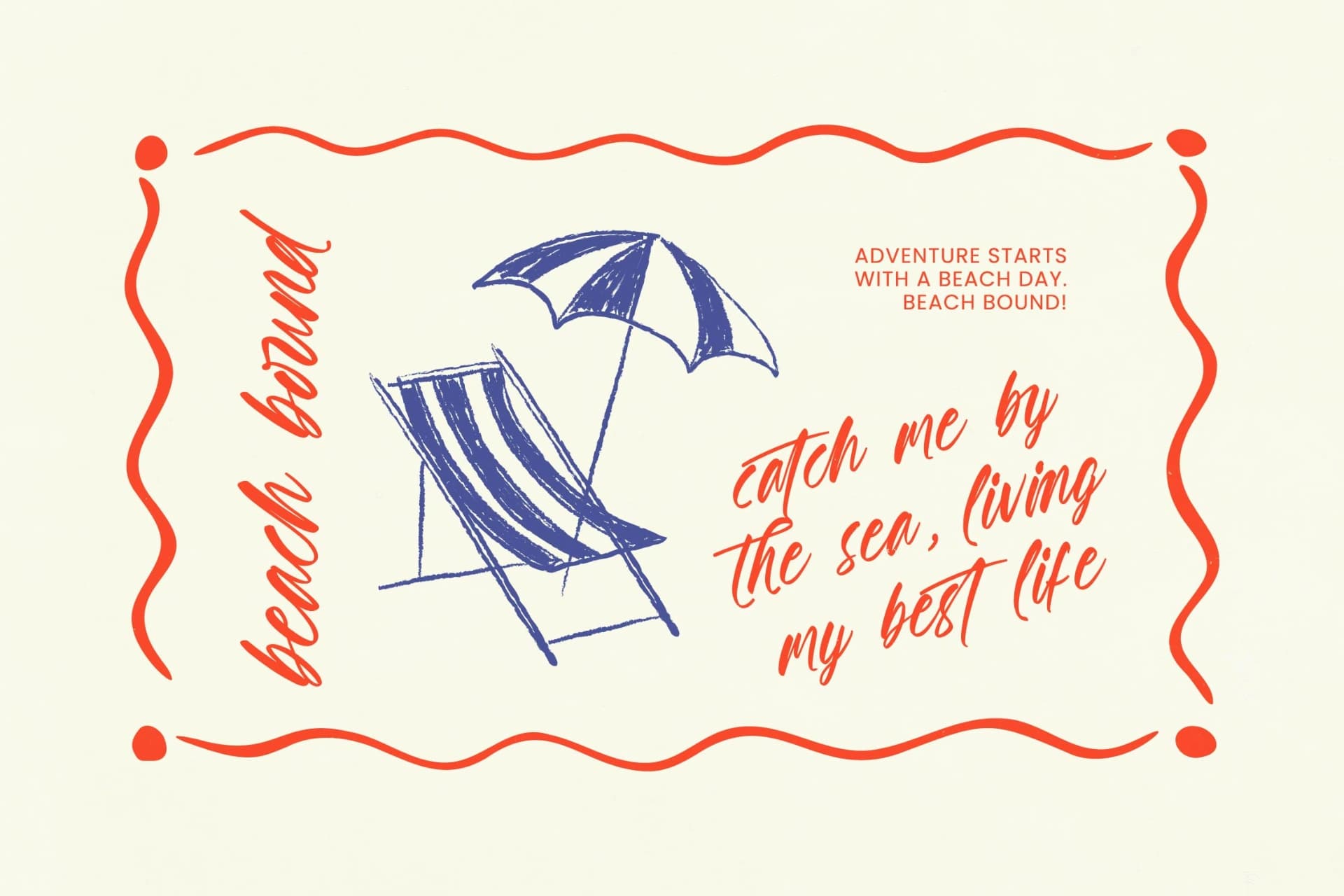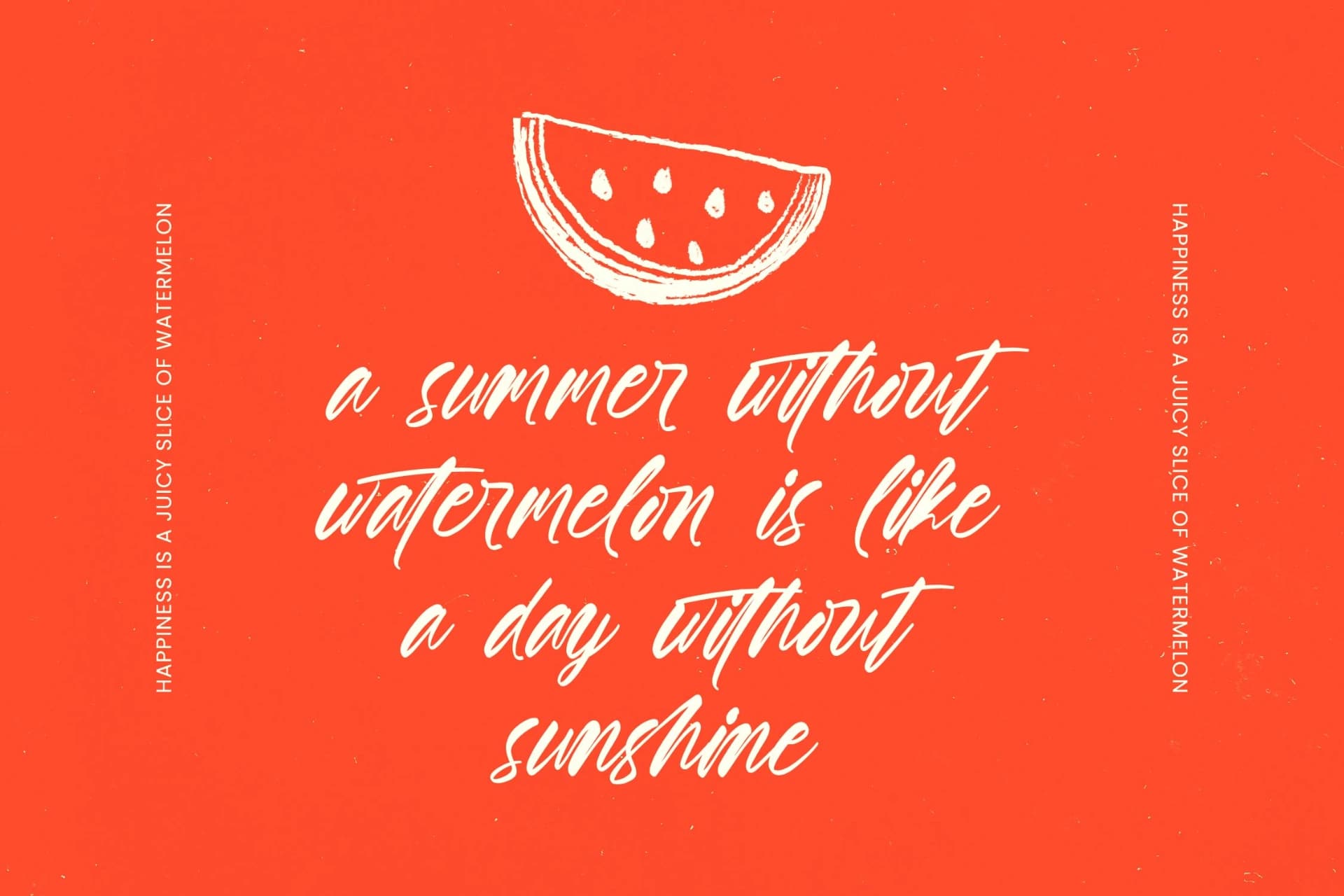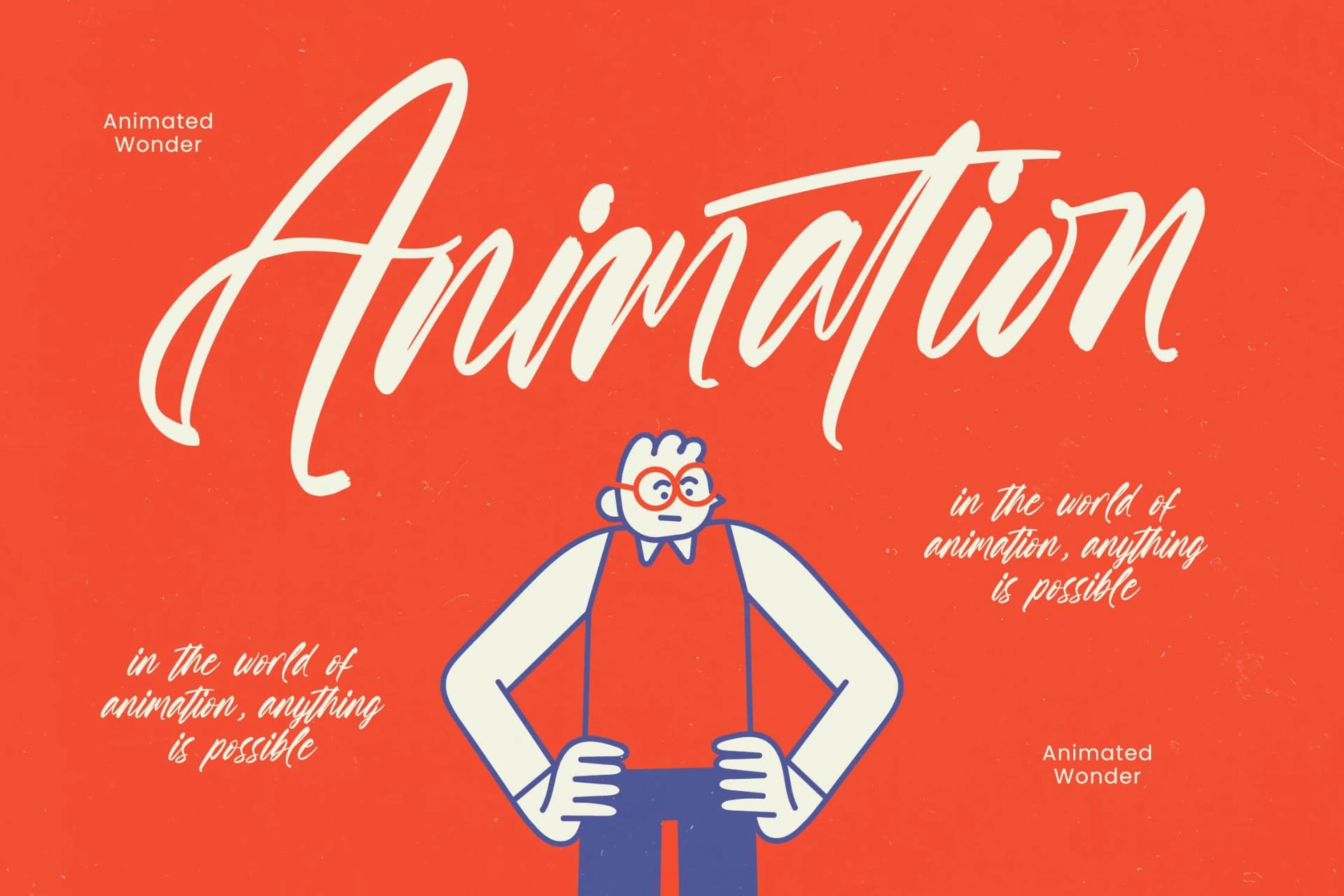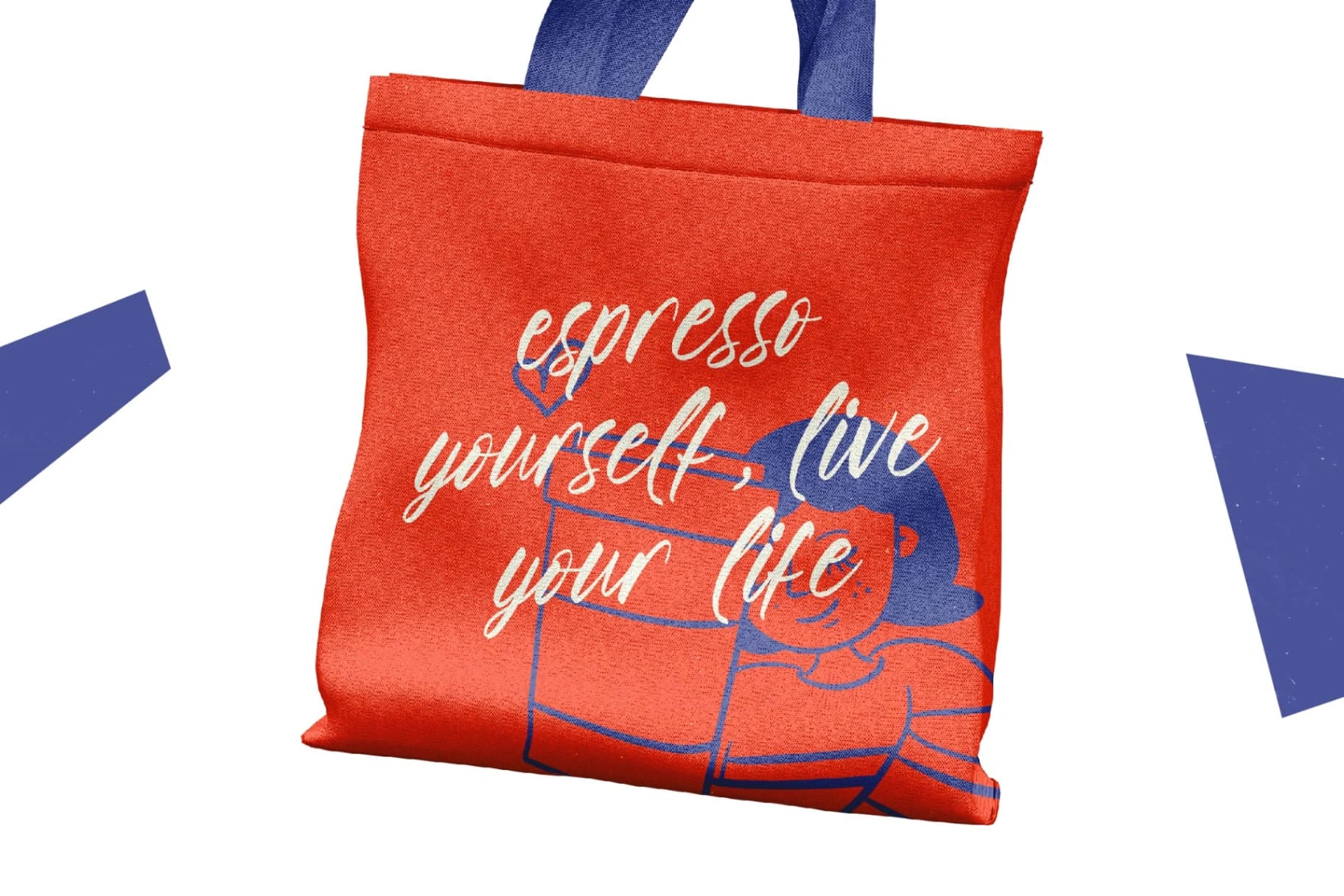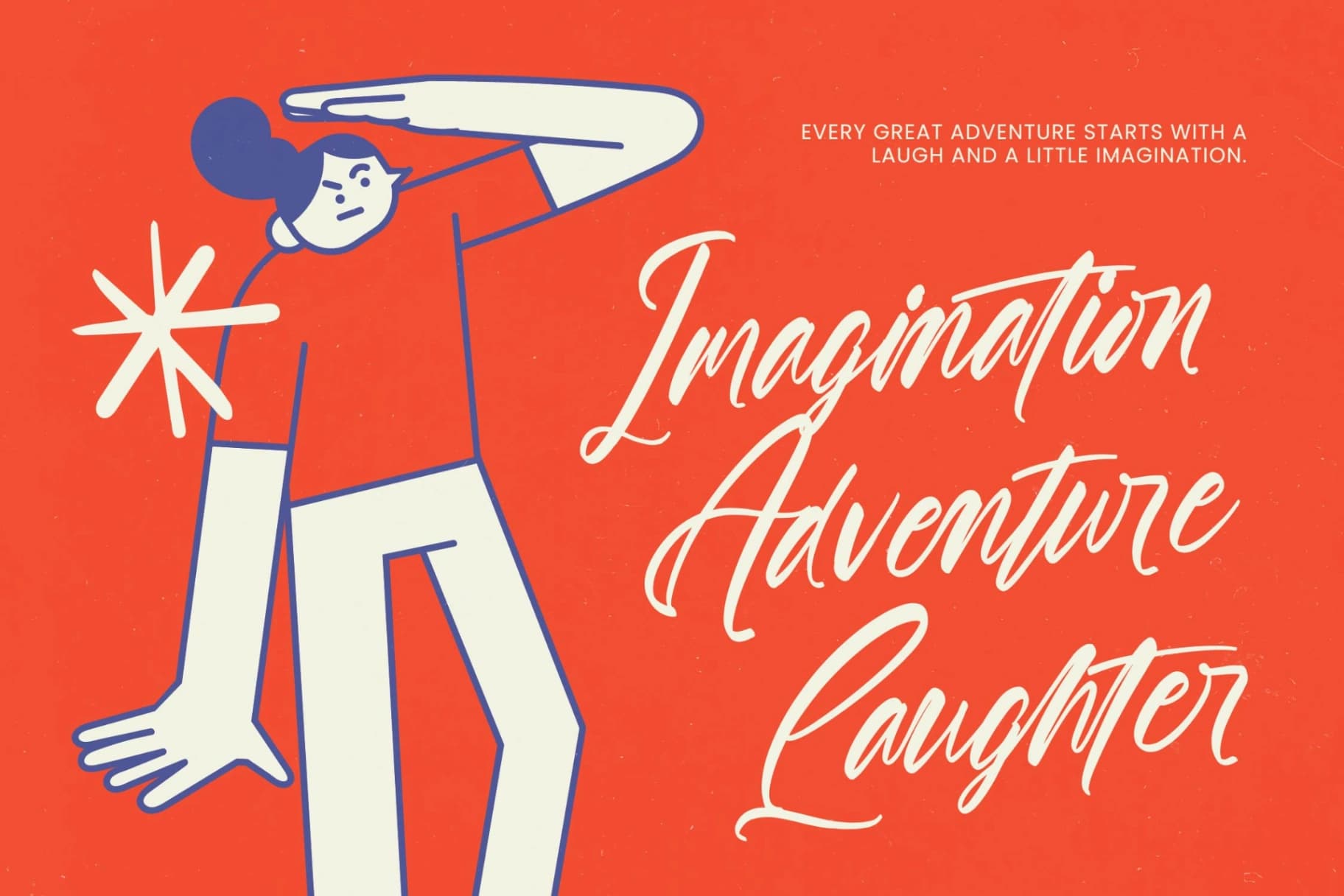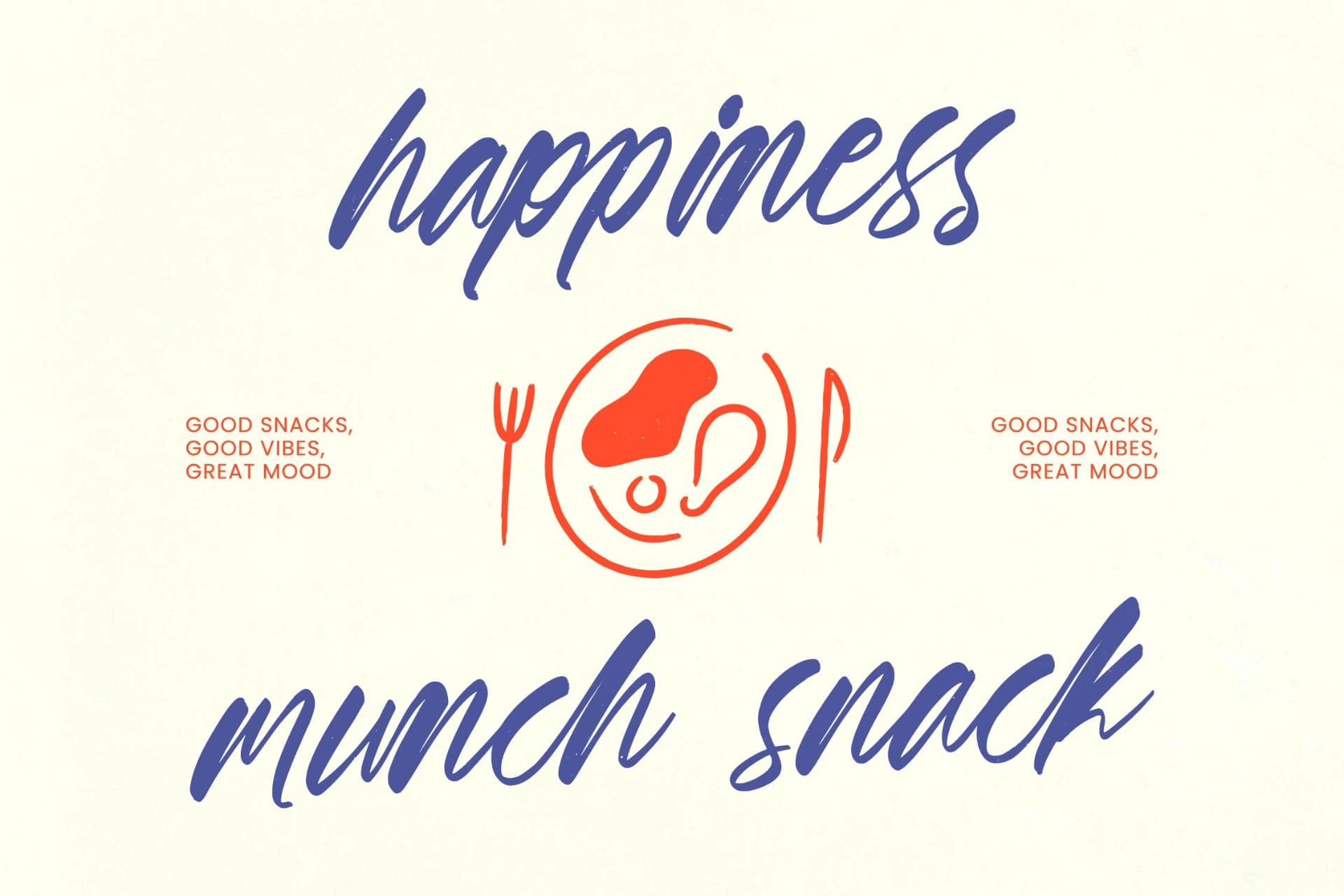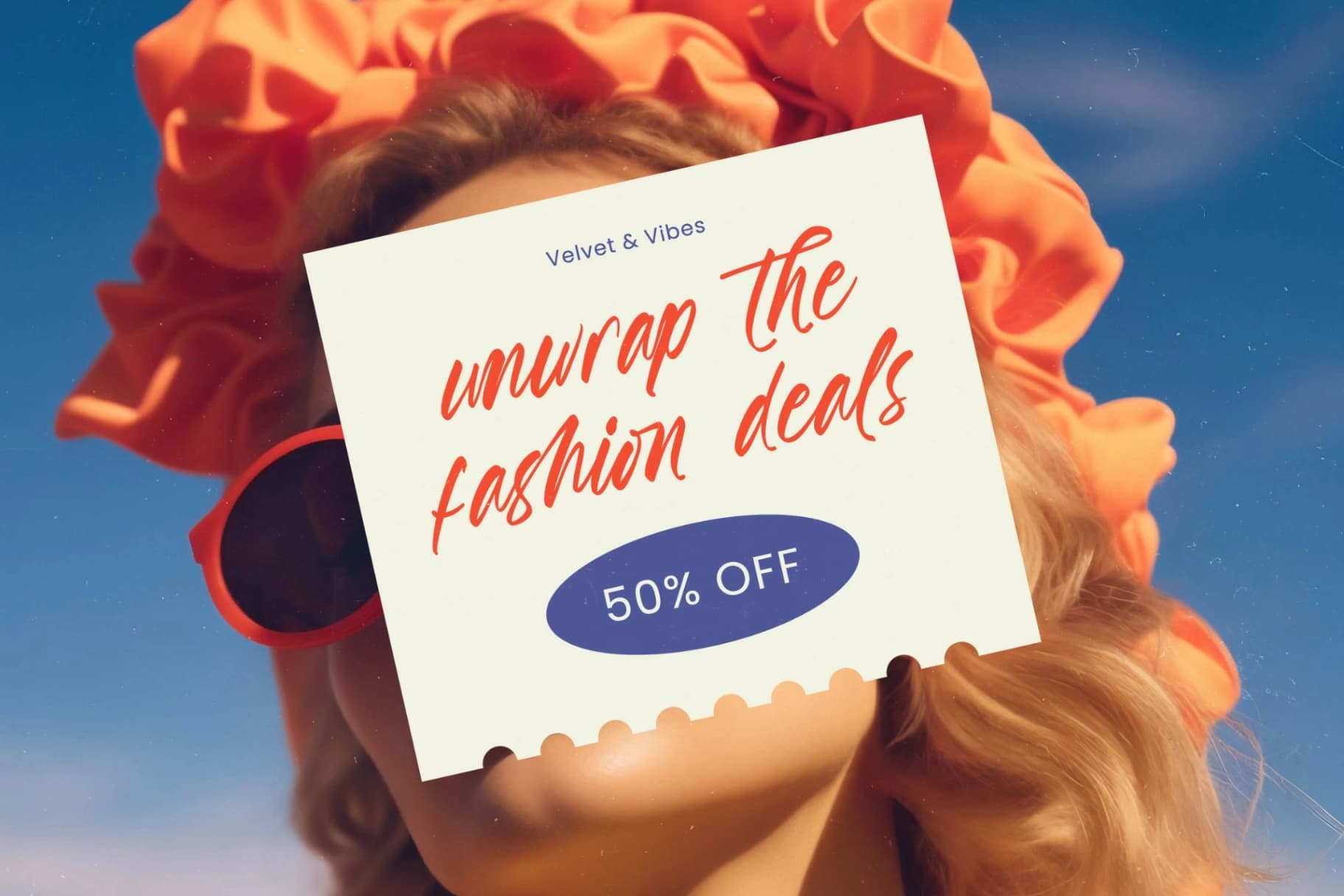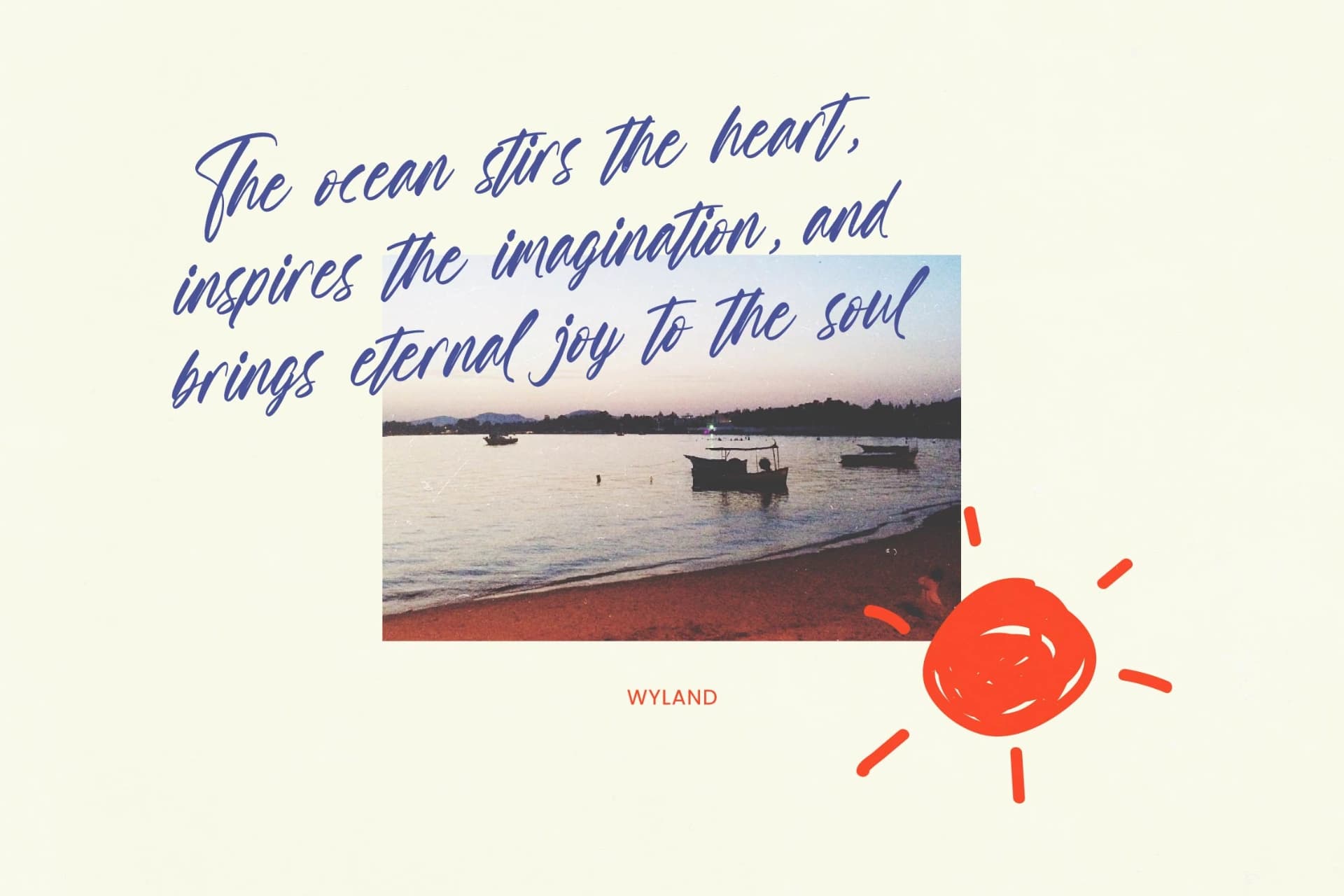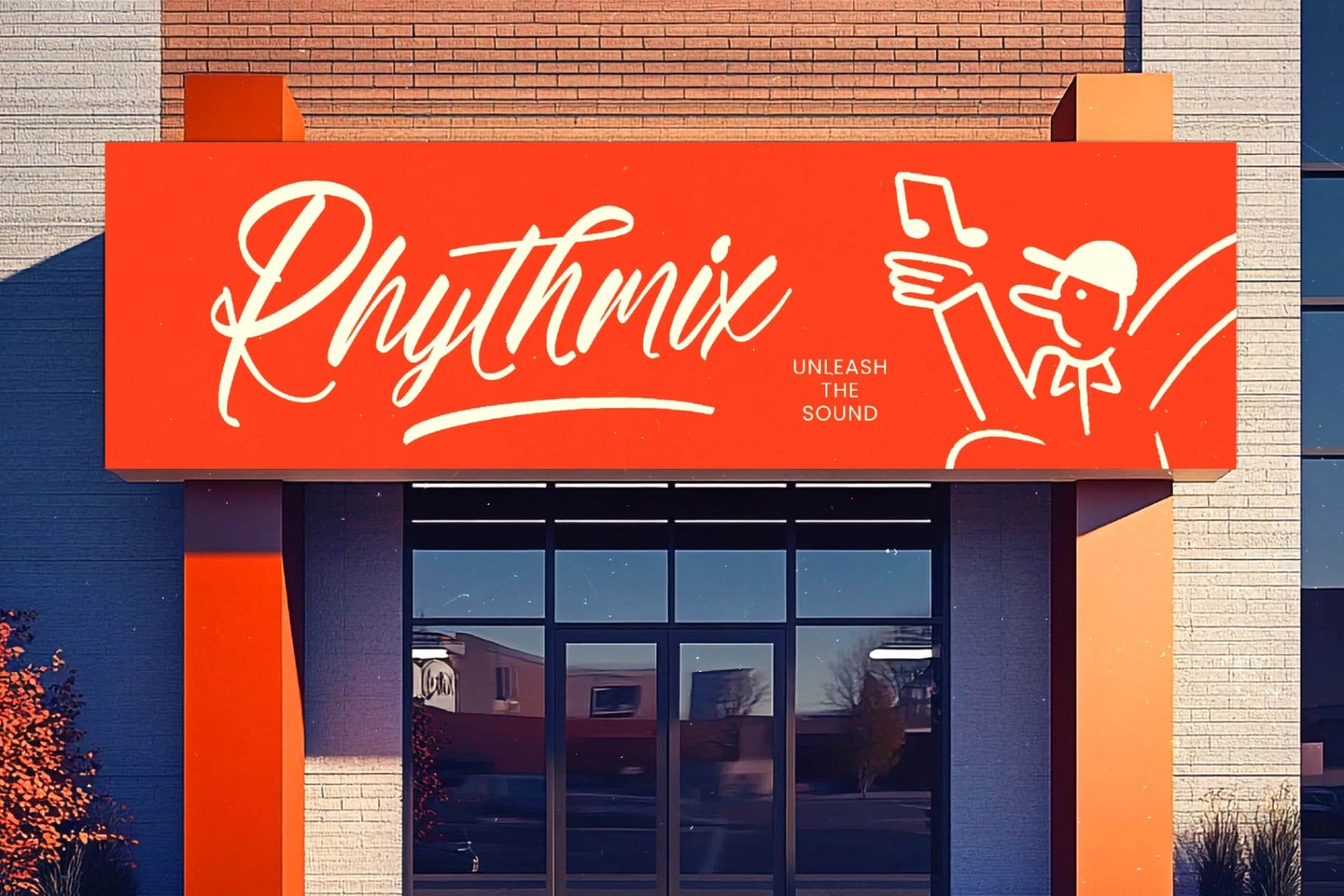
Sutter Youth - Modern Brush Font
Inject immediate personality and dynamism into your design portfolio with Sutter Youth - Modern Brush Font. This vibrant, handcrafted script captures the authentic spontaneity of a rapid brushstroke, delivering a bold, fluid energy perfect for attention-grabbing headers and compelling display text. Its inherent movement and high-contrast styling ensure your message is communicated with impactful confidence and youthful exuberance, making it an essential tool for designers seeking a truly expressive and contemporary display face.
Unlock unparalleled typographic depth and customization power with its comprehensive glyph set. Featuring over 466 total glyphs, Sutter Youth - Modern Brush Font includes an astonishing 126 ligatures and 10 decorative swashes, allowing for truly personalized and bespoke lettering designs. These rich OpenType features enable users to create seamless connections and dynamic headline compositions, ensuring that every project feels distinctive and professional, moving far beyond standard script performance.
Craft visual narratives that resonate immediately with modern consumers. Sutter Youth - Modern Brush Font is perfectly suited for designs requiring a human touch and approachable warmth. It excels in lifestyle branding, food and beverage packaging, engaging social media graphics, and merchandise design. For independent businesses, playful apparel lines, or any project needing a blend of kinetic energy and commercial appeal, this font provides the ideal balance of casual sophistication and dynamic readability.
Expand your reach and ensure global consistency across all touchpoints. With its extensive multilingual support, Sutter Youth - Modern Brush Font adapts seamlessly across global markets, making it incredibly versatile for international projects. Invest in this powerful modern brush font to elevate your creative output, guaranteeing that your final design stands out with authentic flair and undeniable typographic quality that commands attention.